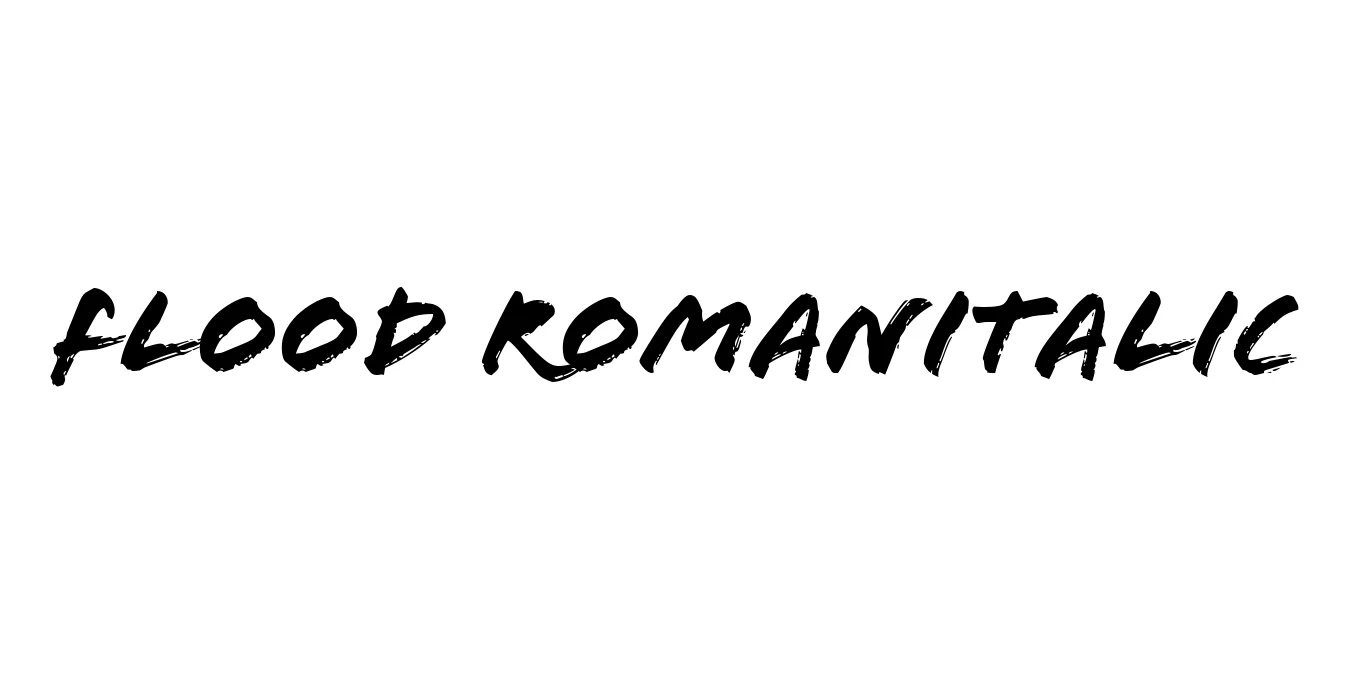
Flood RomanItalic
Designed by Joachim Müller-Lancé
Flood RomanItalic was designed by Joachim Müller-Lancé in 1996 and was originally released through the Adobe Originals program. This font is a masterful representation of the brush script style, capturing the spontaneous and raw energy of a marker or a dry brush on paper. The Roman Italic variant provides a sense of urgency and motion, making it stand out from cleaner, more traditional script typefaces.
The typeface is characterized by its uneven edges and varying stroke weights, which give it a distinctively handcrafted and organic feel. Over the decades, it has become a staple for designers looking to inject personality and vigor into their projects, particularly in contexts where a human touch is required to balance digital precision. Its legibility at large sizes makes it a powerful tool for display purposes across both print and digital media.
Flood RomanItalic Best Uses
High-impact headlines and promotional banners.
Dynamic logos for sports, energy drinks, and lifestyle brands.
Graphic t-shirts and urban streetwear designs.
Eye-catching quotes and organic-looking digital overlays.
Music events and festival promotional materials.